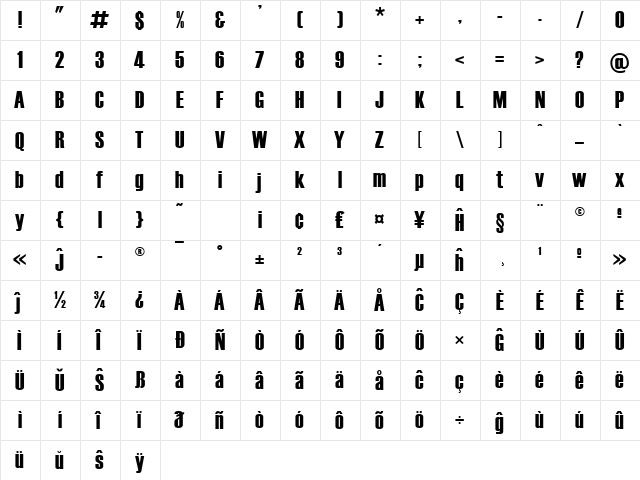
Haettenschweiler Eo Regular
Design Context for Haettenschweiler Eo Typeface
Haettenschweiler Eo offers clean, dependable letterforms without strong stylistic allegiance, making it a practical choice for designers who need flexibility.